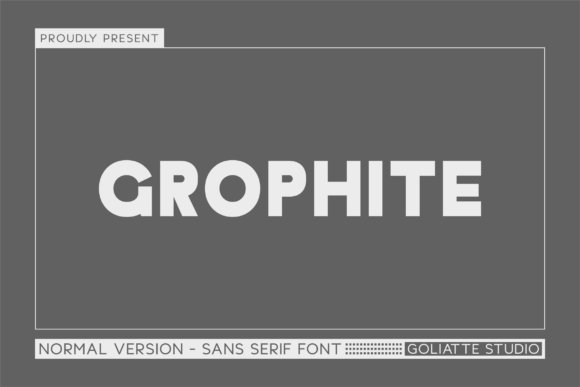
Unlock the Power of Grophite Font
Have you ever stared at a blank design canvas, searching for the perfect font to elevate your project? The blank page stares back, taunting you with its emptiness. It’s in these moments of creative uncertainty that we turn to the perfect font – one that exudes strength, authority, and professionalism. Enter Grophite, a modern sans serif typeface designed specifically for the modern designer.
Grophite Font is more than just a font – it’s a statement piece that adds depth and clarity to your design. With its clean lines, minimalist aesthetic, and all-caps design, Grophite Font is the perfect solution for projects that require a bold, confident look. Whether you’re designing a logo, website, or print material, Grophite Font is the key to unlocking your creative potential.
- Character Set: Supports Latin, Cyrillic, and Greek alphabets
- Unique Characteristics: Grophite features a modern sans-serif design with a unique blend of geometric and organic shapes, making it suitable for various design applications, including branding, advertising, and digital media.
Grophite Font Review
Overall, I found the Grophite font to be a solid addition to any design project. It’s a versatile font that can be used in a variety of contexts, from headlines to body text.
- ✨ High legibility: Grophite is easy to read, even at small font sizes, making it perfect for digital content.
- ✨ Versatility: The font comes in a range of weights, from light to bold, allowing designers to create a cohesive visual identity.
- ✨ Friendly feel: Grophite has a warm, approachable feel that makes it suitable for a wide range of industries and audiences.
- ⚠️ Limited flair: While Grophite is a solid font, it may not be the best choice for projects that require a lot of personality or flair.
- ⚠️ Not ideal for small text: While Grophite is highly legible, it may not be the best choice for very small text sizes, where other fonts may be more suitable.
In conclusion, Grophite is a reliable font that can be used in a variety of contexts. While it may not be the most exciting or unique font, it gets the job done and can be a valuable addition to any design project.